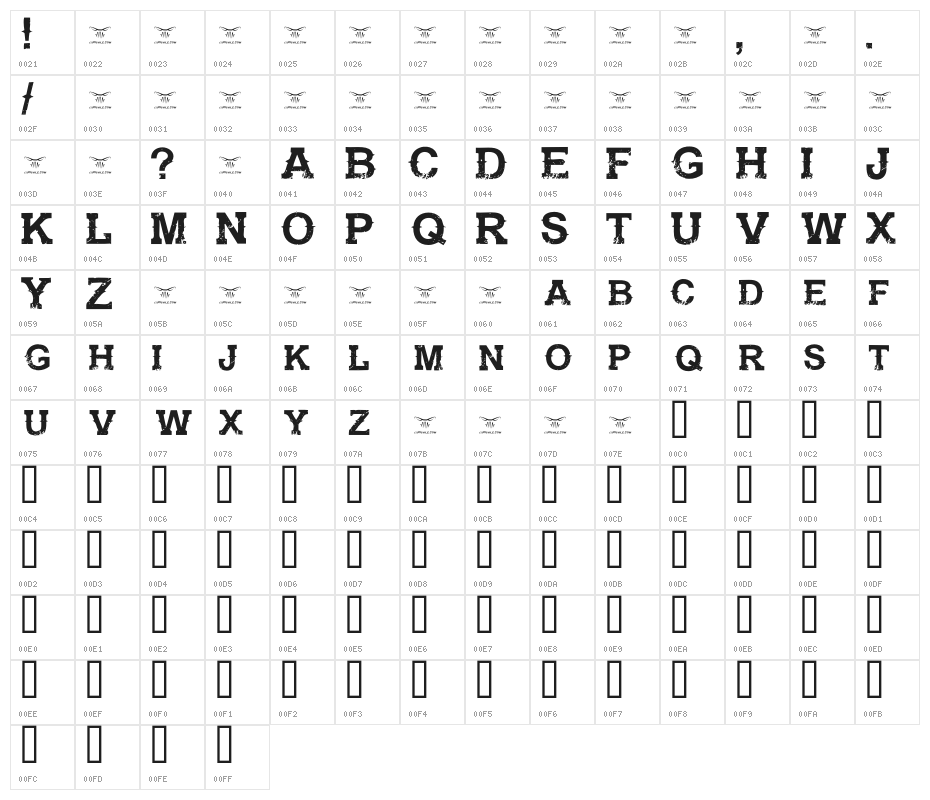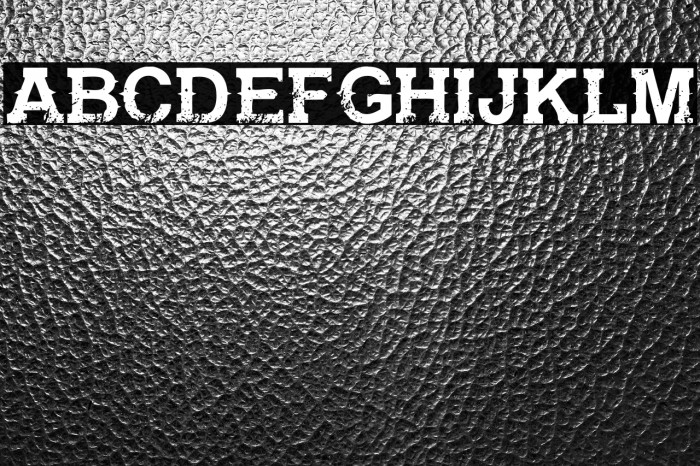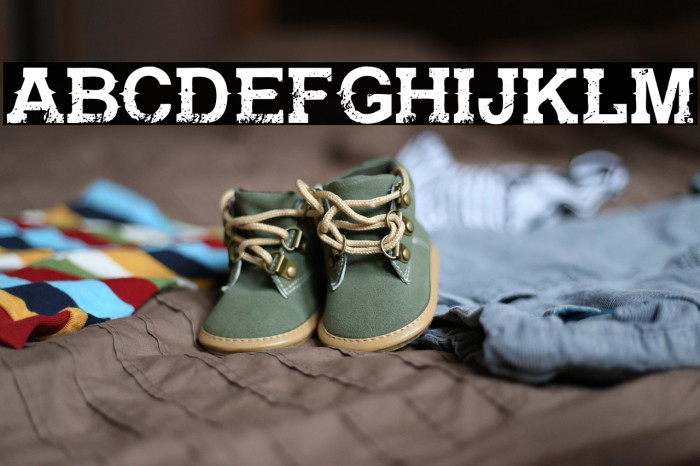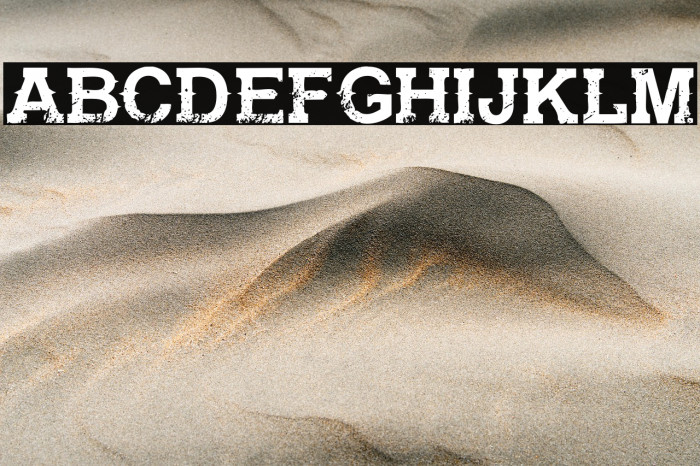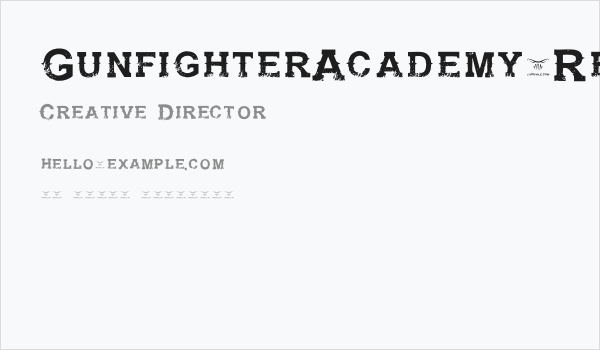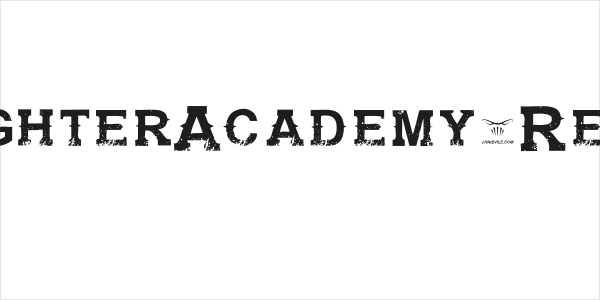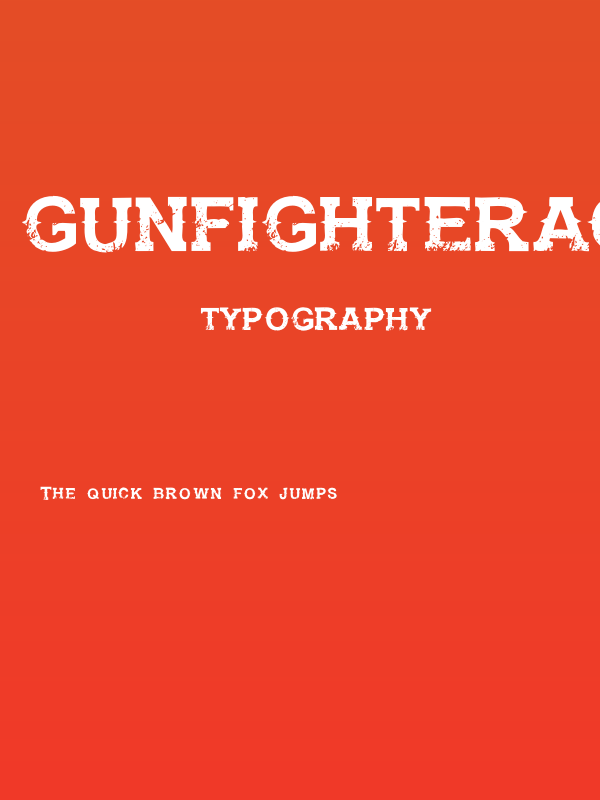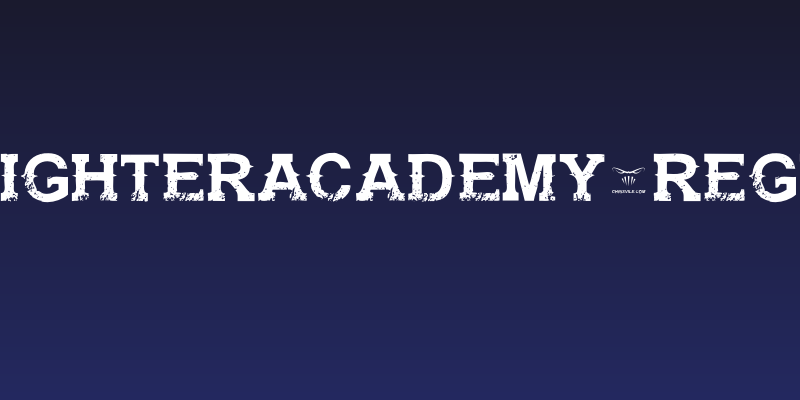
GunfighterAcademy-Regular Font
GunfighterAcademy-Regular Description
This font features a rugged, distressed style with a bold presence. The characters have a textured, worn appearance, reminiscent of vintage Western aesthetics. Each letter is bold and blocky, with rough edges that give it a gritty, authentic feel. The uppercase and lowercase letters maintain a consistent style, while the numbers and special characters follow suit with the same distressed look. This font is ideal for projects that require a strong, impactful visual element with a touch of nostalgia.
| Proposed Projects | Perfect for posters, branding, and designs that need a rugged, vintage feel. |